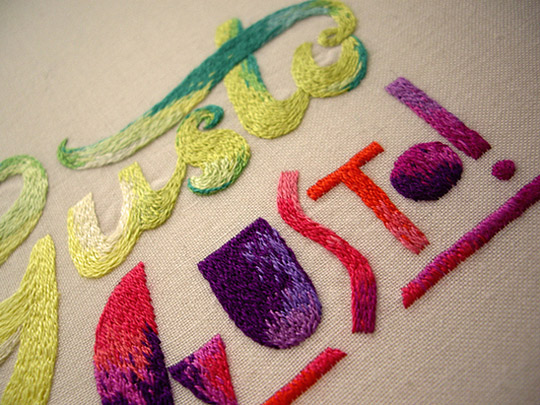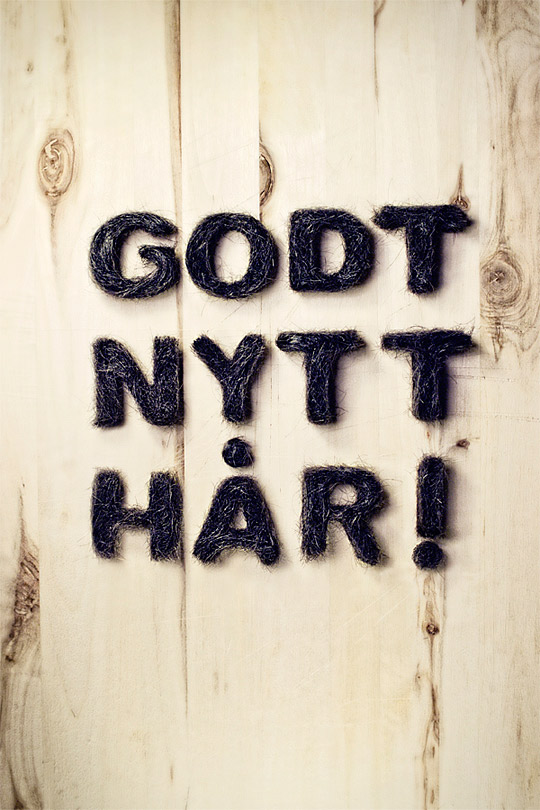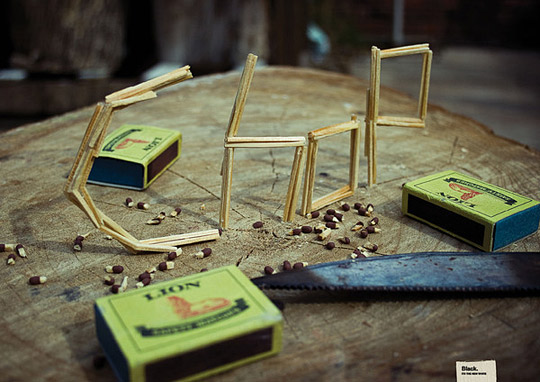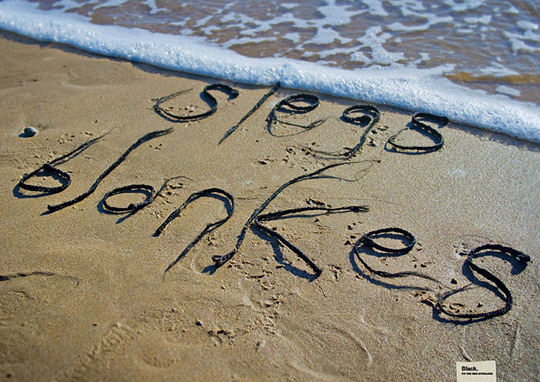
Handmade Fonts
I have to say, fonts are my hobby. Discovered my love for fonts long time ago. Fonts evolve from day to day … also that’s why I am looking around the web for new creative pieces quite frequently. This article is not exactly about fonts you may use in your creative artworks … it’s about handmade typography. Today we’ll show you the creativity has simply no boundaries. Just check the pictures below … how about some typography cookies … or meat number 5 :). Well, this is certainly something you won’t see every day.